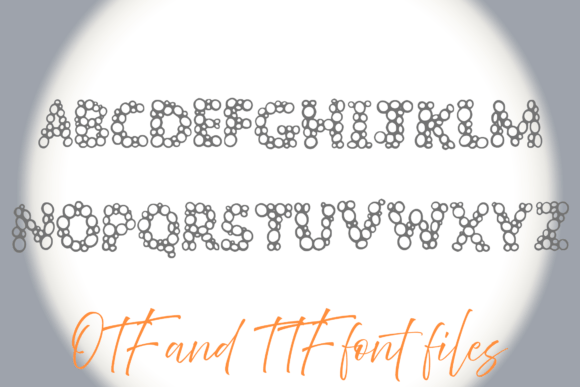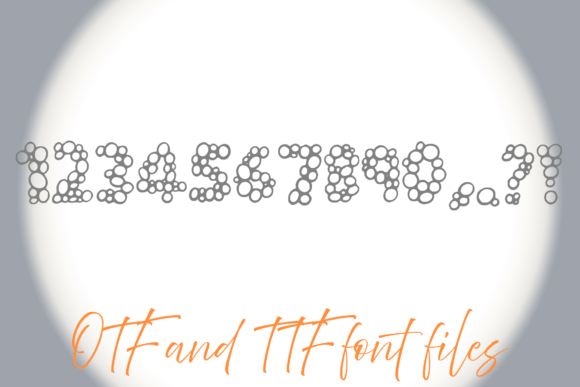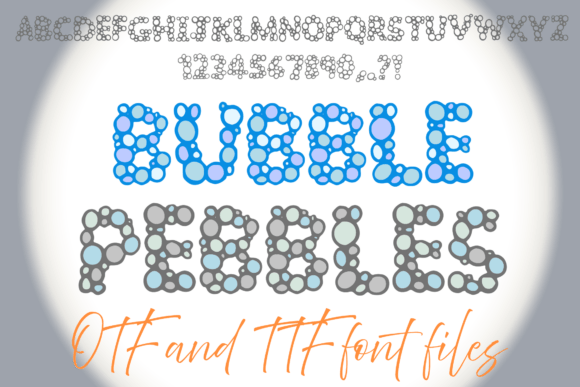
The Joy of Bubble Pebble Font: A Designer’s New Best Friend
I still remember the time I was working on a project for a children’s brand, and I was struggling to find the perfect font that would capture the playful and whimsical vibe of their products. The client wanted something that would make their brand stand out, but I was stuck in a font rut. That’s when I stumbled upon Bubble Pebble Font, and it was love at first sight! ✨
This cute and quirky display font has been a game-changer for my designs, and I’m excited to share its awesomeness with you. In this article, we’ll dive into the world of Bubble Pebble Font, exploring its features, how to use it, and some similar fonts you might love.
An Honest Review of Bubble Pebble Font
- ✨ Cute and Quirky Design: Bubble Pebble Font is perfect for adding a playful touch to your designs. Its unique bubble-like shape and pebble-inspired texture make it a standout.
- ✅ Highly Versatile: This font is perfect for display purposes, but it can also be used for headings, titles, and even short paragraphs.
- 💫 Easy to Read: Despite its quirky design, Bubble Pebble Font is surprisingly easy to read, making it perfect for designs that require a bit of whimsy.
While Bubble Pebble Font is amazing, there are a few things to keep in mind: 🤔
- ⚠️ Limited Use Cases: While it’s perfect for display purposes, it might not be the best choice for body text or long paragraphs.
- ⚠️ Glyph Limitations: Some users have reported that the font could benefit from more glyphs and special characters.
The Backstory of Bubble Pebble Font
Bubble Pebble Font was designed by a team of creatives who wanted to create a font that would bring joy and whimsy to designs. Inspired by the smooth, rounded shapes of pebbles and the playful nature of bubbles, this font was born. 💫
A: Bubble Pebble Font is a cute and quirky display font designed to add a playful touch to your designs.
And that’s a wrap! 🎉 Bubble Pebble Font is an amazing addition to any designer’s toolkit. Its unique design, versatility, and ease of use make it perfect for a wide range of projects. Whether you’re a seasoned pro or just starting out, this font is sure to bring a smile to your face and a touch of whimsy to your designs. 💖